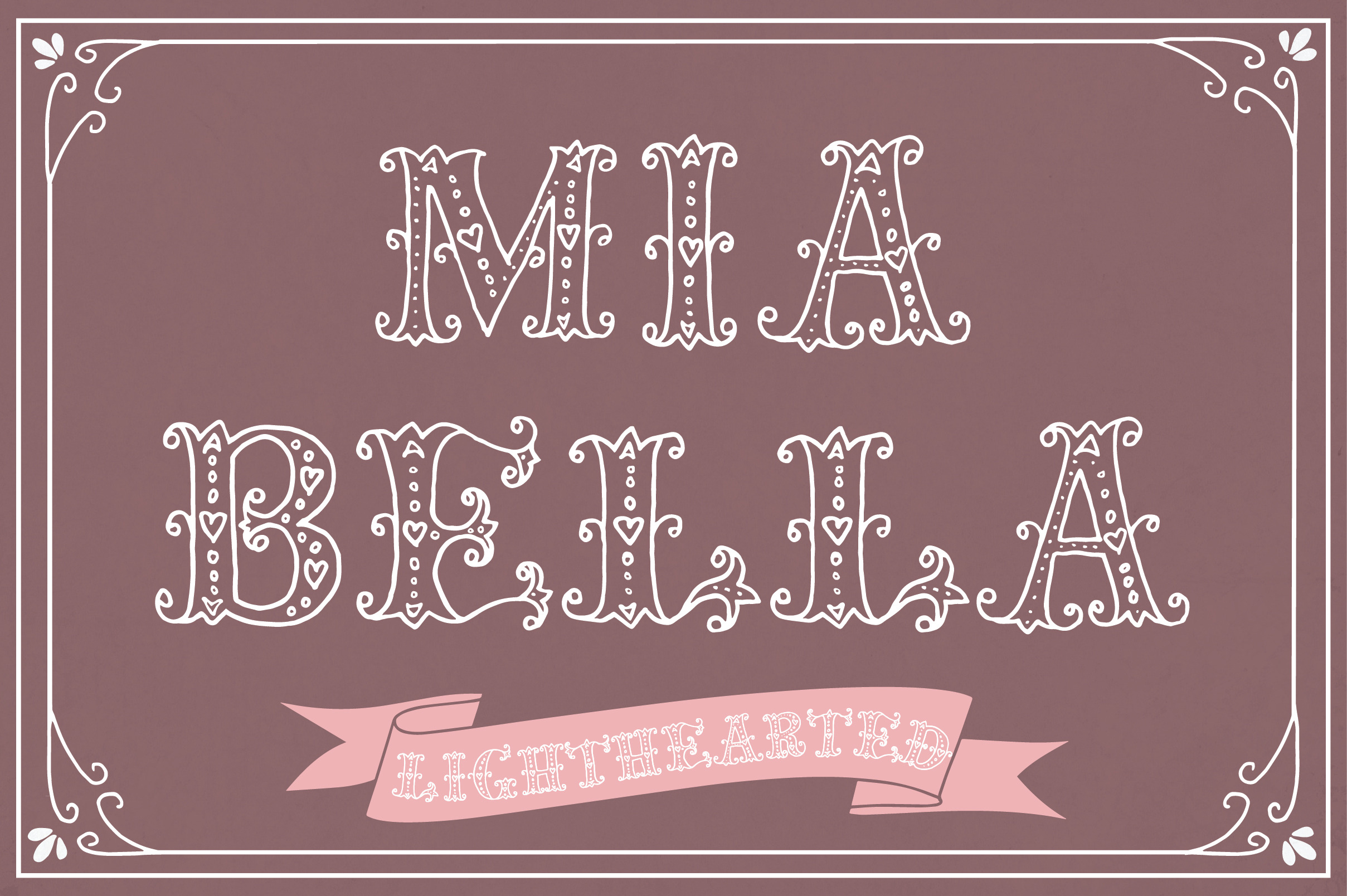
Mia Bella (Lighthearted) Font
Mia Bella (Lighthearted) is the light version of Mia Bella, which you will find here: https://creativemarket.com/thePENandBRUSH/61683-Mia-Bella-Font
Mia Bella (Lighthearted) is a sweet, romantic, all-caps display font inspired by traditional Roman capitals and vintage lettering. She features curly silhouettes, and highly decorative detail work reminiscent of paper cut-outs & love letters. You will just love using Mia Bella to create decorative typography, titles, drop caps and even borders! Simply type ***** ...... ~~~~~~ ``````` +++++ or ------ to create cute page dividers and borders. Or experiment with your own combinations!
Mia Bella (Lighthearted) comes with all the essential glyphs (see example pic 2), plus extras including alternate currency symbols, copyright, trademark and all the accents you need to write in most European languages.